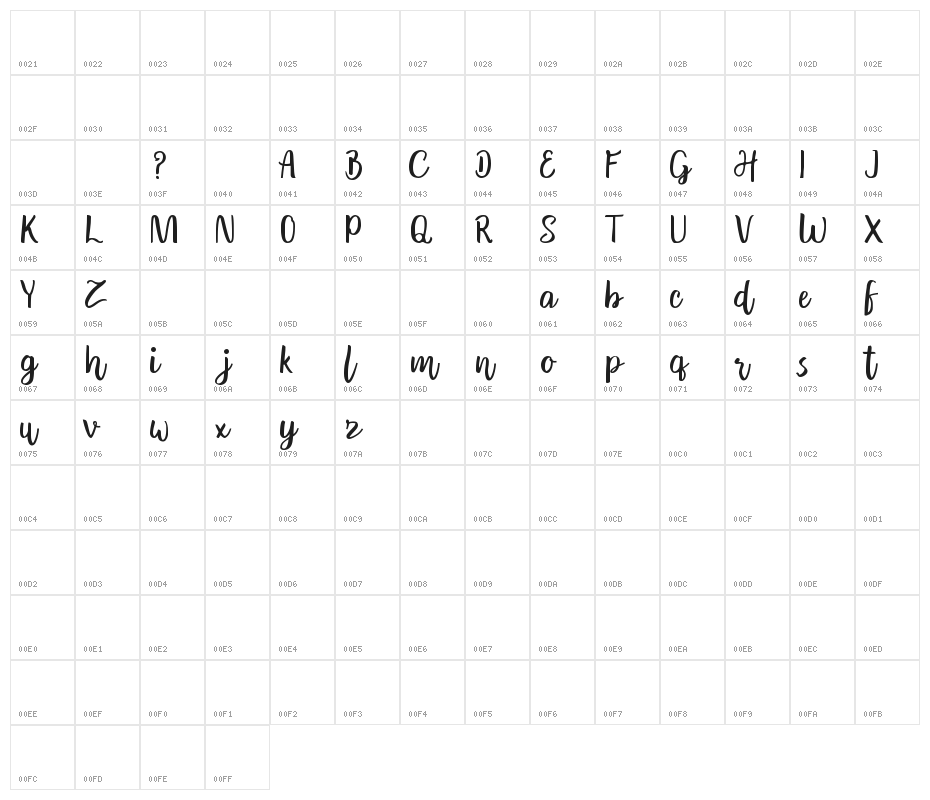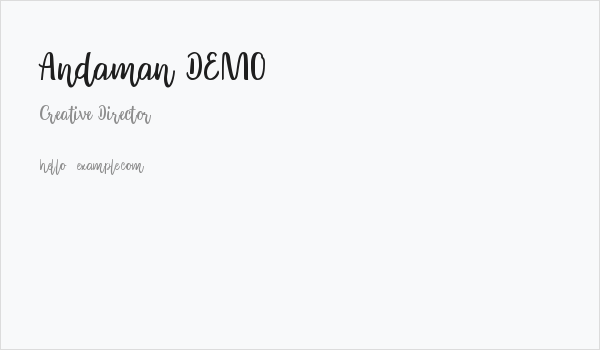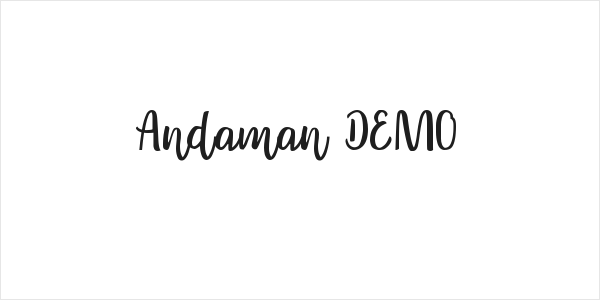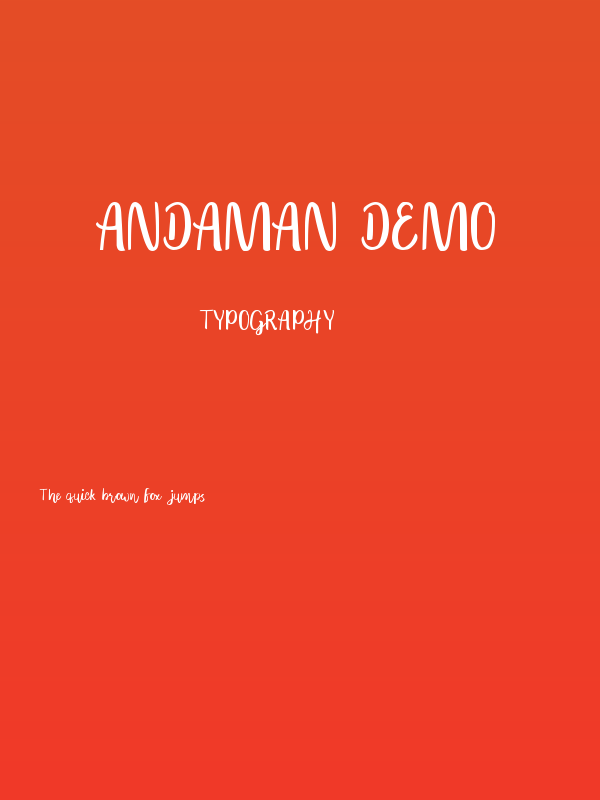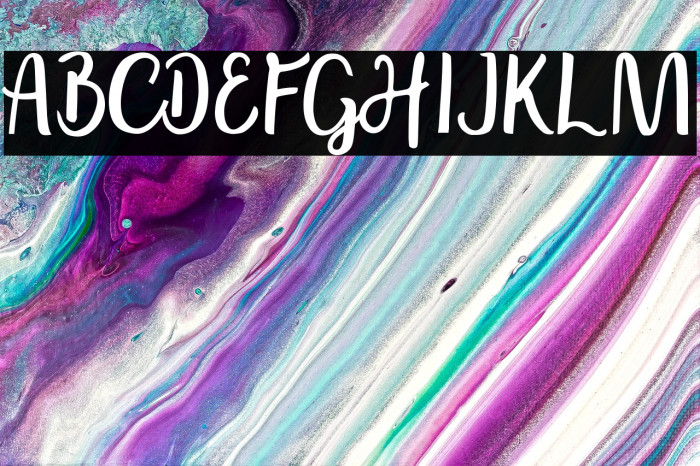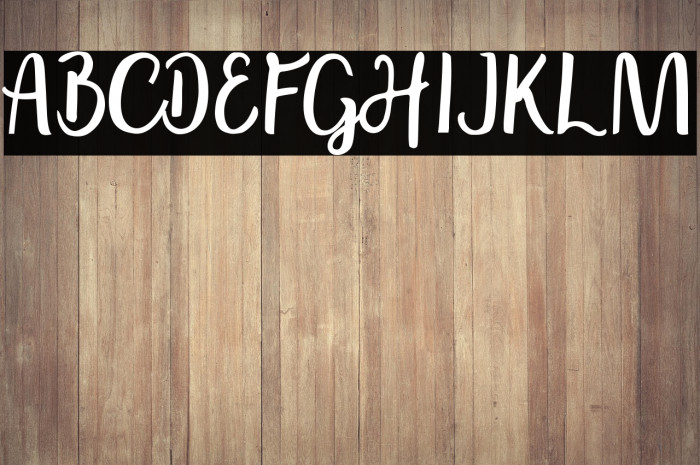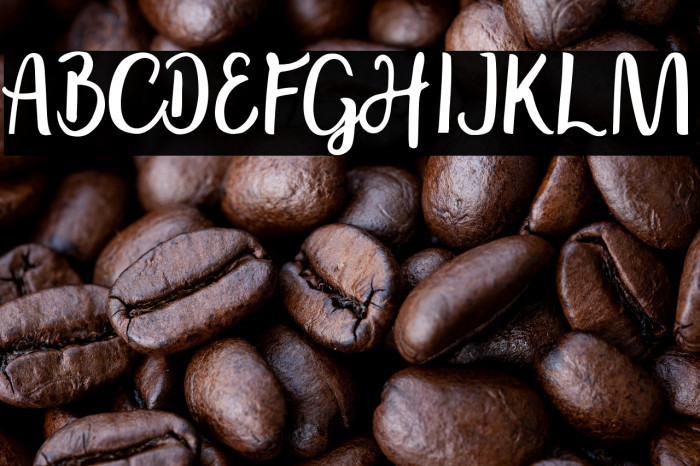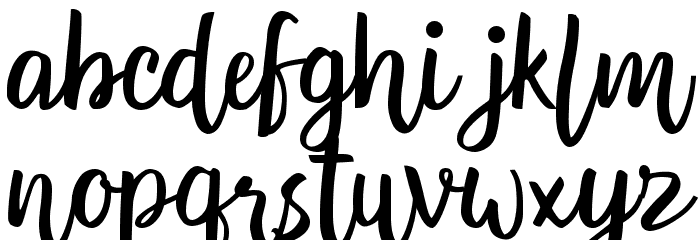
Andaman DEMO Font
Andaman DEMO Description
This font features a lively and expressive handwritten style, characterized by its fluid and dynamic strokes. The uppercase letters are bold and slightly condensed, with a playful bounce that adds a sense of movement. The lowercase letters maintain a consistent flow, with some characters extending below the baseline, enhancing the casual and informal feel. The overall design is modern and artistic, making it suitable for creative projects. The font's unique personality is evident in its varied stroke widths and the slight slant of the characters, which contribute to its approachable and friendly appearance.
| Proposed Projects | Ideal for greeting cards, invitations, branding, and social media graphics. |